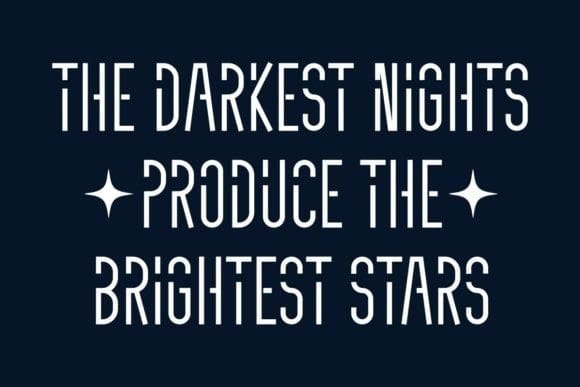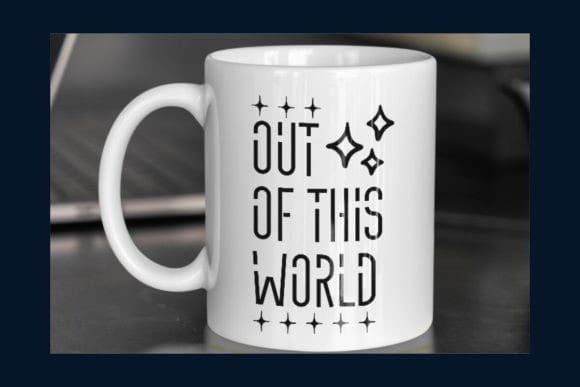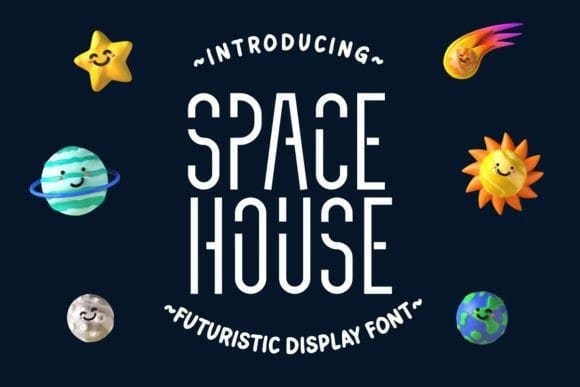
Space House Font
Space House Font is a aesthetic and innovation modern display font with futuristic style. SpaceHouse is a future design that seamlessly marries futuristic elements with the simplicity of monoline styling.